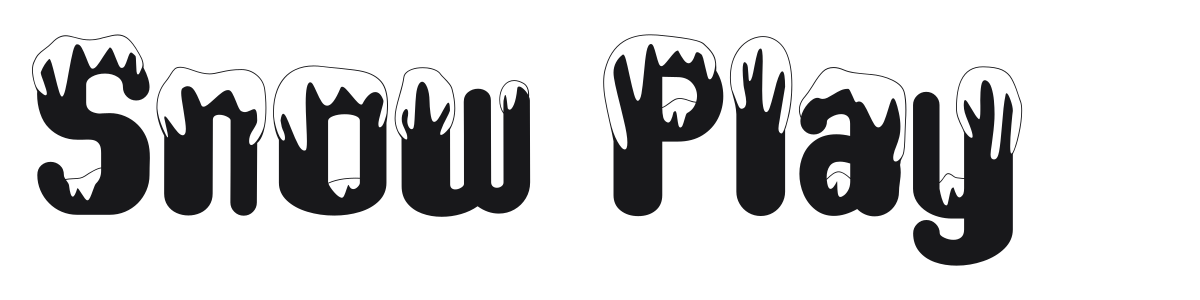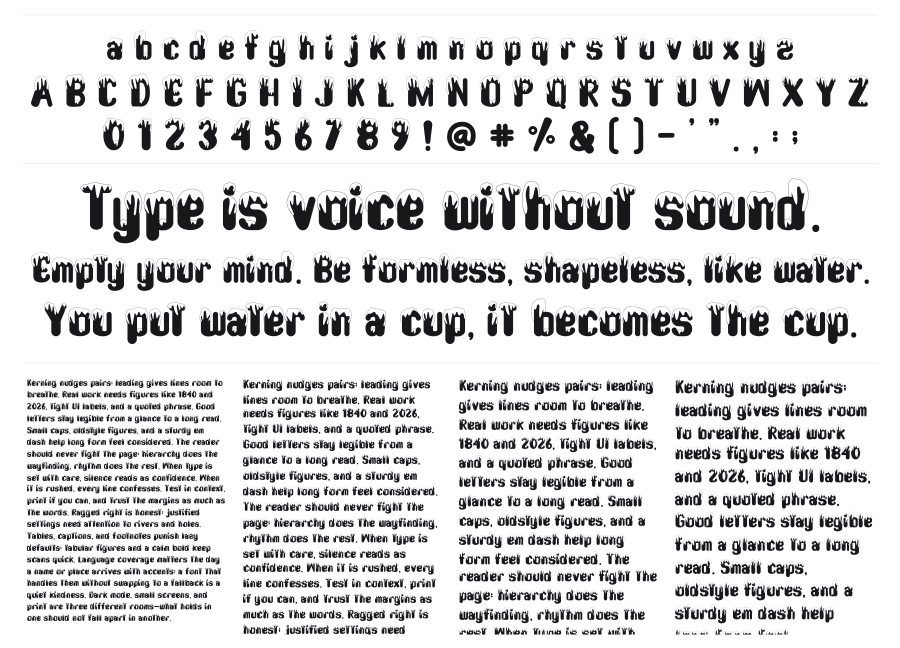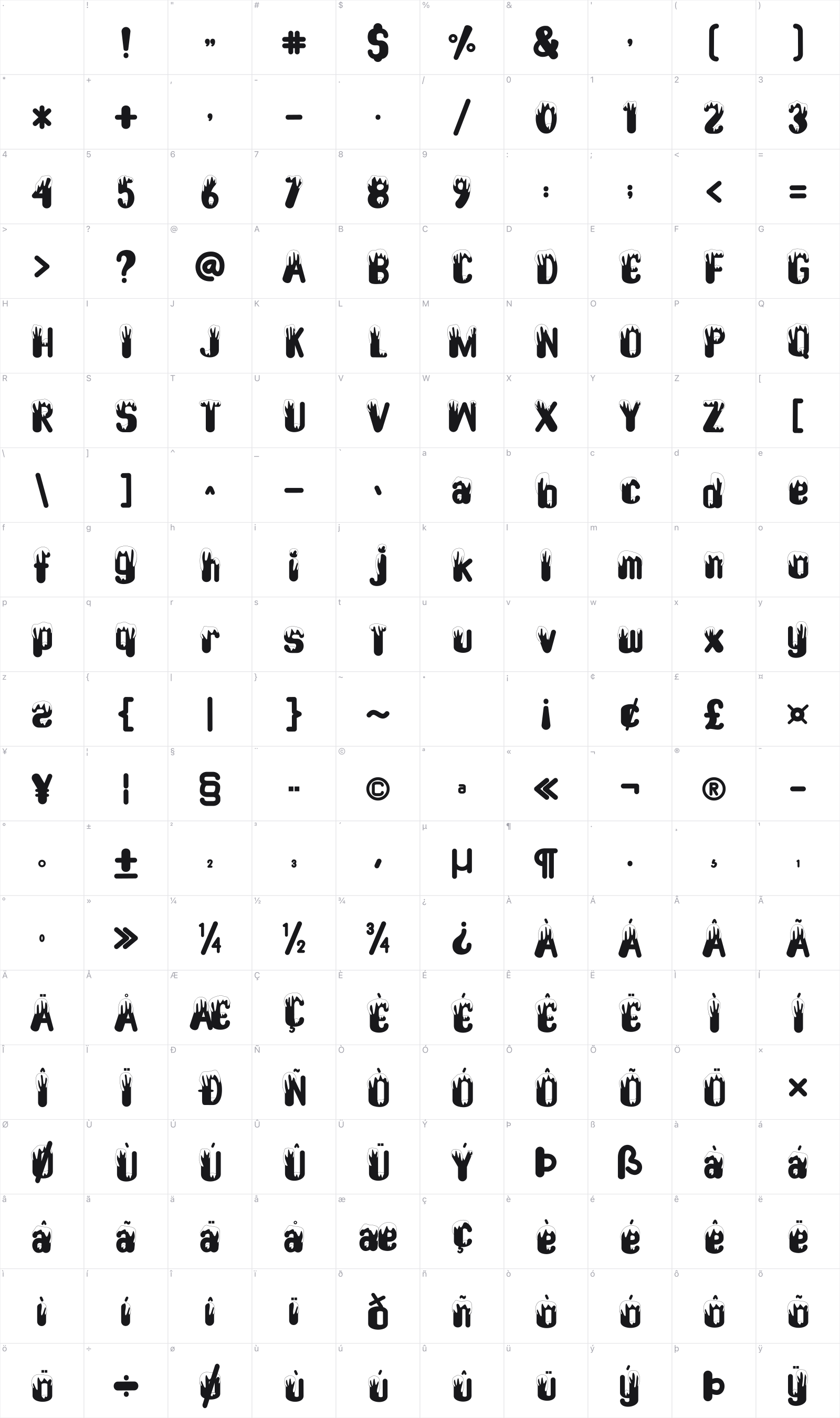
Snow Play
by Letterafa Studio
Snow Play is a bold, snow-drenched display font from Letterafa, where every character is buried under piled snow and dripping icicles. The thick rounded forms are almost unrecognizable beneath the winter decoration, which is exactly the point. Best used large for Christmas posters, holiday packaging, and seasonal branding.